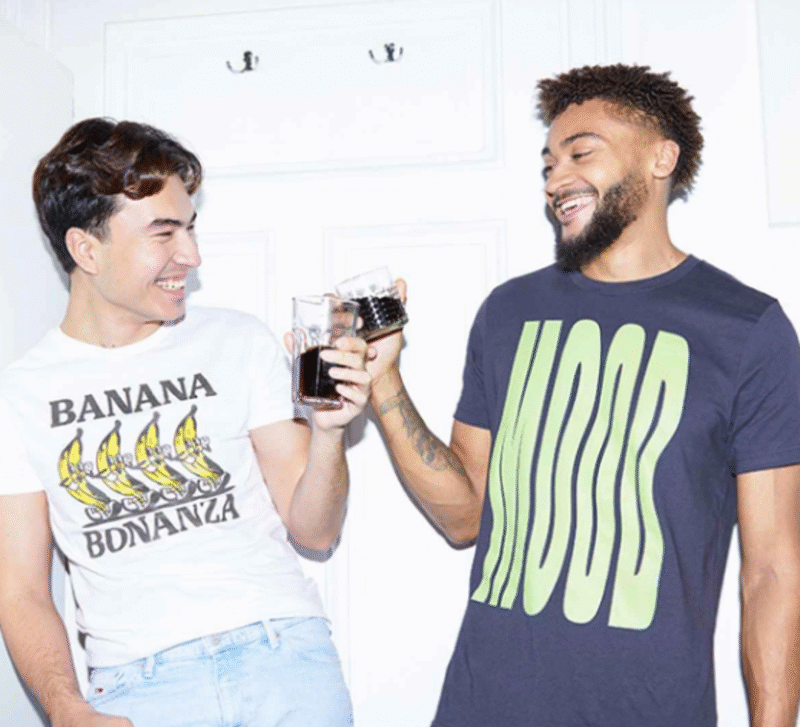
Top Free Fonts for Custom Tees: Pairings That Shine
Typography is more than just decoration—it’s the voice of your message. On a t-shirt, that voice has to be bold, clear, and memorable. Whether you’re designing for a cause, a brand, or a laugh, the fonts you choose play a pivotal role in making your merch pop.
In this guide, we’ll explore the top free font pairings ideal for custom t-shirt designs, especially when working with print-on-demand (POD) platforms. You’ll get practical font combinations, visual tips, and file prep strategies to help your type-driven tees stand out.
Why Font Choice Matters for Tees
Your t-shirt is a moving billboard—and the type on it is what gets read, remembered, or ignored.
- First Impressions: Bold typography captures attention in a sea of graphic tees.
- Emotion: Fonts carry mood. A sharp slab serif screams authority, while a playful script whispers warmth.
- Brand Recognition: Consistent font use helps define your style and audience.
Font Selection Criteria for Tees
Not all fonts print well on fabric. We curated this list using criteria that ensure your designs not only look good on-screen but also print beautifully:
- Bold or High Contrast: Visibility from a distance matters.
- Clean Contours: Avoid overly intricate fonts that may blur or bleed.
- Scalable Formats: Fonts that work well in SVG, EPS, or high-res PNG are a must for POD platforms.
5 Font Pairings That Shine on T-Shirts
Each pairing below includes font links, mockup-ready slogans, and design notes.
1. Anton + Raleway
Why it works: Anton’s bold all-caps presence commands attention, while Raleway adds minimalist elegance for secondary lines.
Example Slogan:
GRIND MODE
Every Day is a Hustle
Usage Tip: Keep Anton uppercase with tight tracking; use Raleway in lighter weights for balance.
2. Bebas Neue + Open Sans
Why it works: Bebas Neue is a POD classic—bold, clean, and condensed. Open Sans makes any caption legible even at small sizes.
Example Slogan:
VINTAGE VIBES
Est. 1995 | Limited Run
Usage Tip: Align left for a modern editorial look.
3. League Spartan + Playfair Display
Why it works: A blend of bold minimalism and old-school flair, perfect for fashion-forward brands.
Example Slogan:
WILD FEMME
Fearless & Free
Usage Tip: Try mixed case to break up hierarchy between headline and subtext.
4. Russo One + Roboto Condensed
Why it works: A bold, tech-inspired duo—excellent for esports, startups, or gamer merch.
Example Slogan:
NO LAG ZONE
100% Skill — Zero Excuses
Usage Tip: Use white on black tees for a digital feel.
Using These Fonts in POD Workflows
To ensure your fonts print crisply on apparel, follow these steps:
1. Convert Text to Outlines: Always export fonts as outlines (vector shapes) to avoid font file conflicts.
3. Choose the right printing technique: The most widely used techniques for custom t-shirts are DTG and DTF
4. Check Layout & Scale:
- Max print areas vary—front center prints generally max at 12” wide.
- Ensure text remains legible at full and preview sizes.
5. Mind Color Contrast:
- Use light fonts on dark tees (and vice versa).
- Avoid low-opacity overlays unless testing thoroughly.
Fonts That Convert
In the world of custom merch, your font choice is your voice. The right pairing doesn’t just look good—it influences how customers feel and whether they buy.
So don’t settle for defaults. Experiment. Try A/B testing your tees with different typography, alignments, and weights.